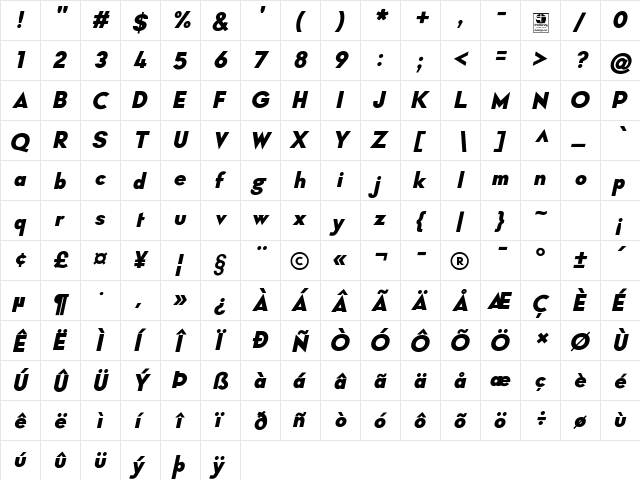
Typo Formal Demo Bold Italic
| Foundry | StudioTypo |
| Designer | Mehmet Abac |
Design Context for Typo Formal Demo Typeface
Typo Formal Demo offers clean, dependable letterforms without strong stylistic allegiance, making it a practical choice for designers who need flexibility. Its italic angle brings a sense of urgency and motion to the letterforms. The heavy weight commands attention and anchors typographic hierarchies.
Pro Tip: Use Typo Formal Demo for emphasis, pull quotes, and subheadings where its slanted energy can add rhythm to the layout.